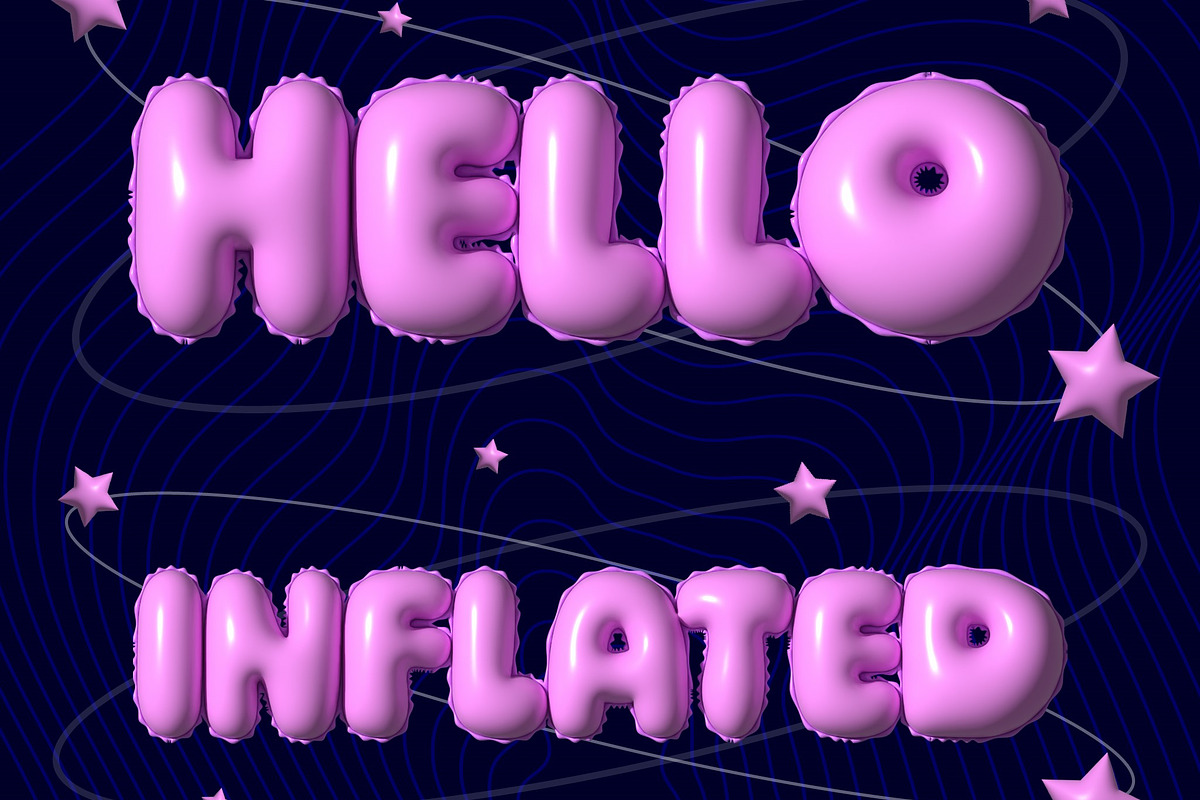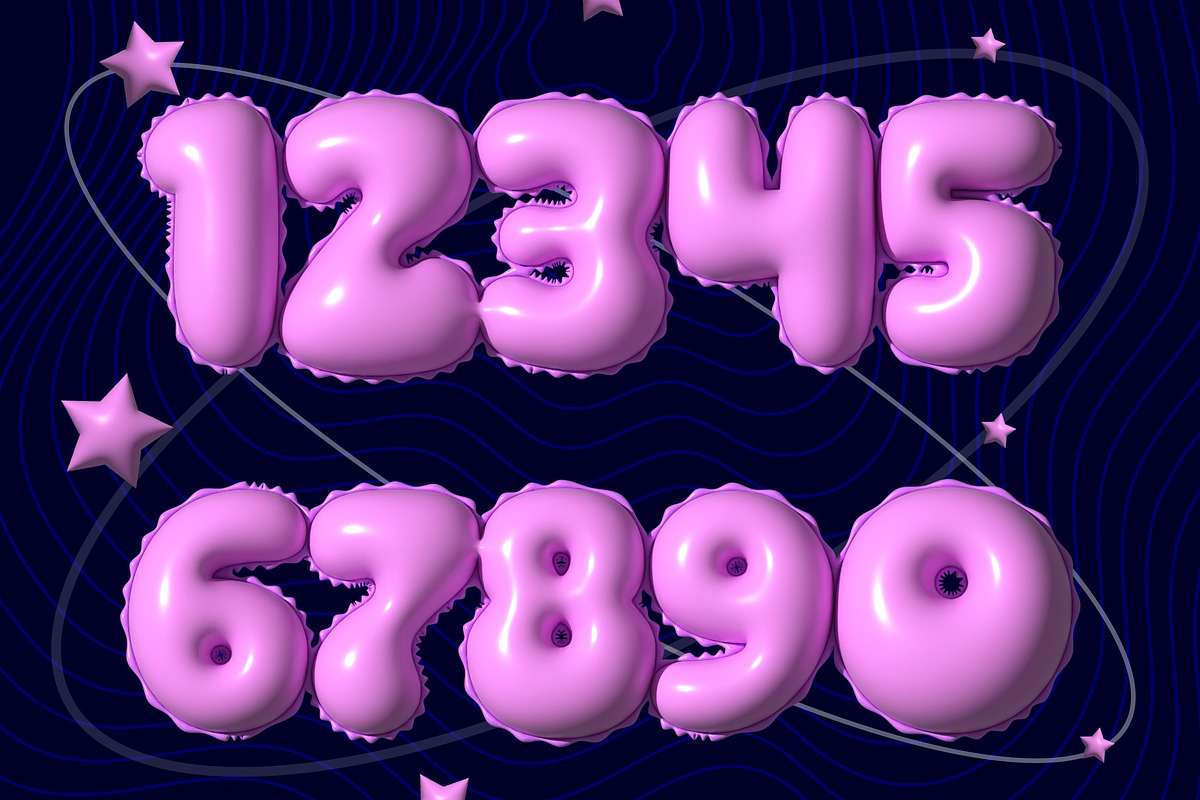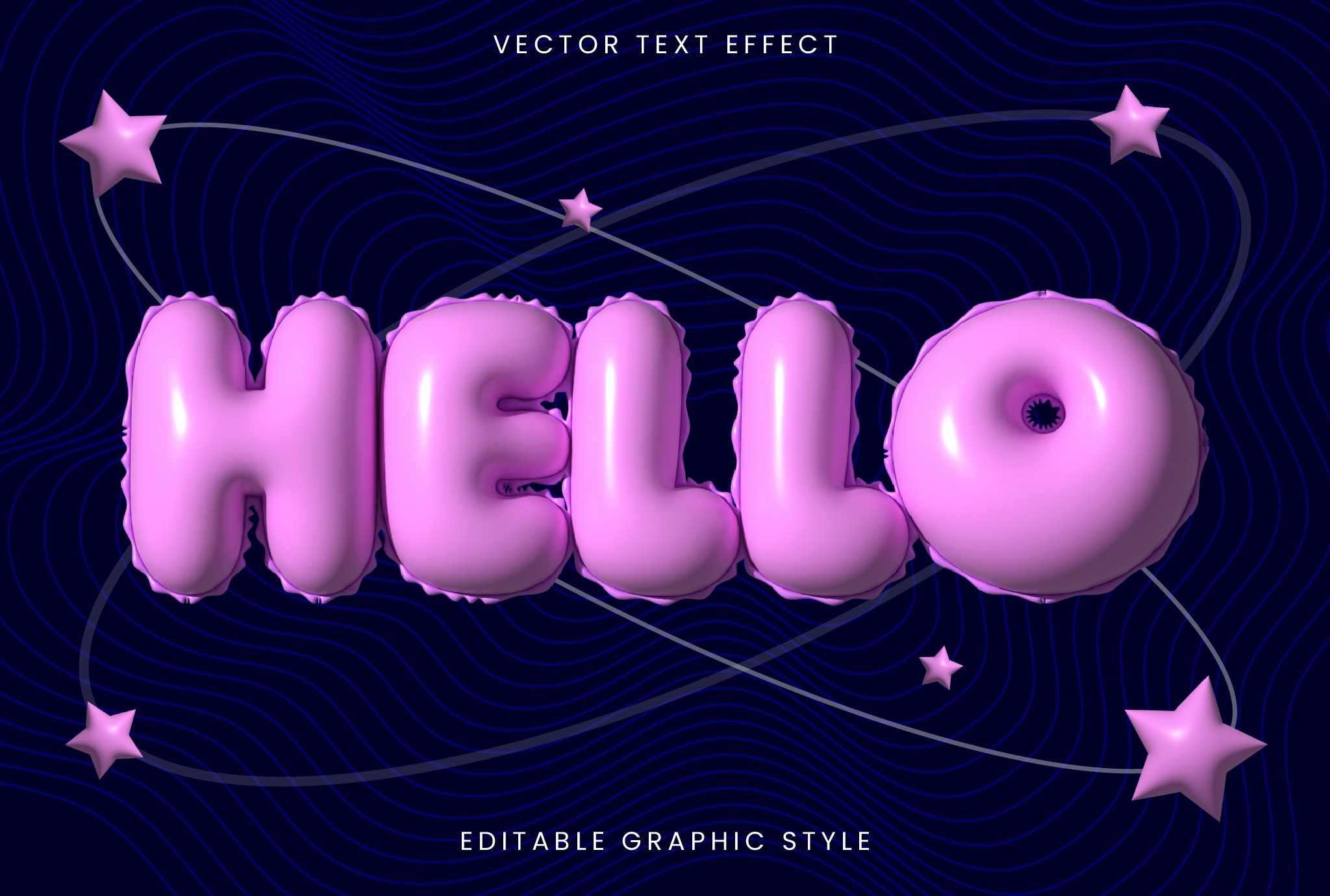
Shiny Text Effect Inflated 3D Font
Create fun and playful typography with this shiny text effect, inflated 3D font. This vector design is fully editable in Adobe Illustrator, featuring well-organized layers for easy customization. Perfect for party invitations, kids' designs, and creative projects.